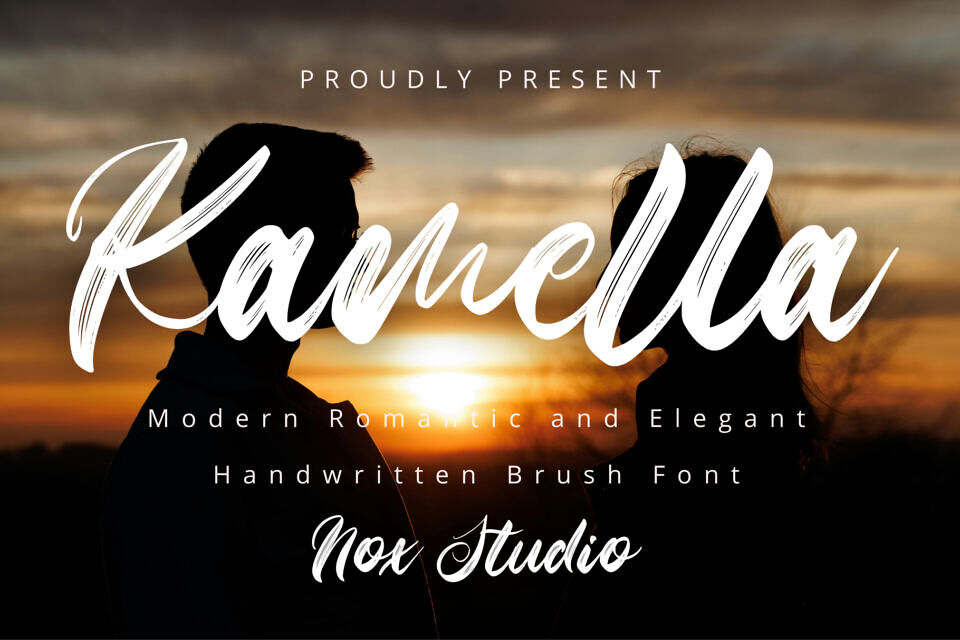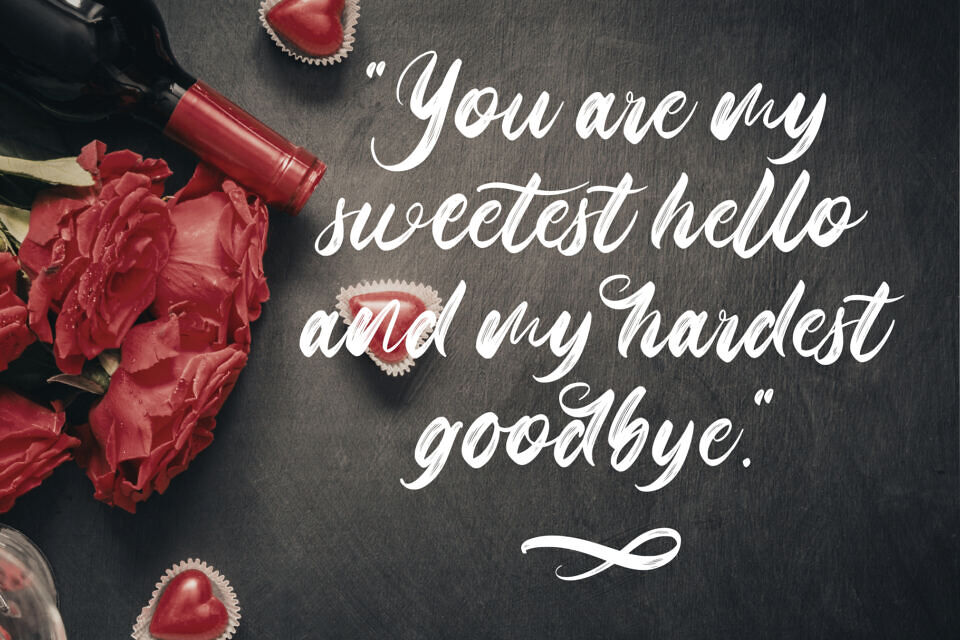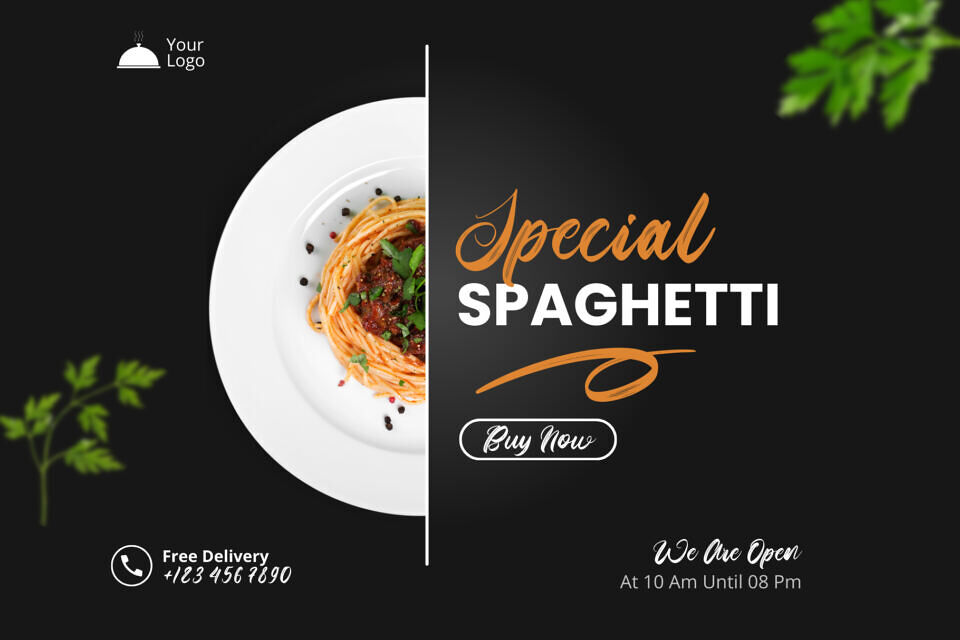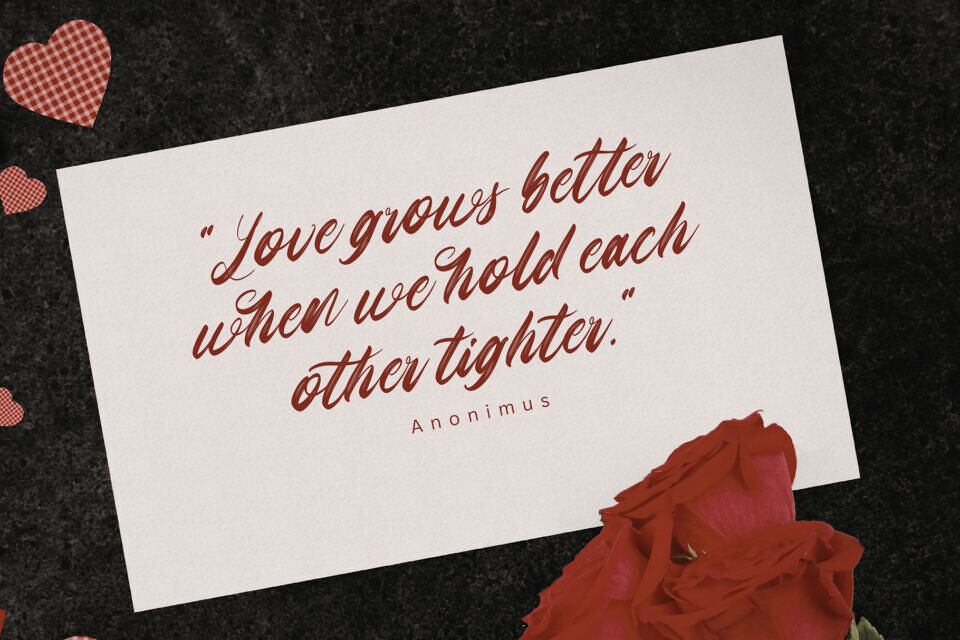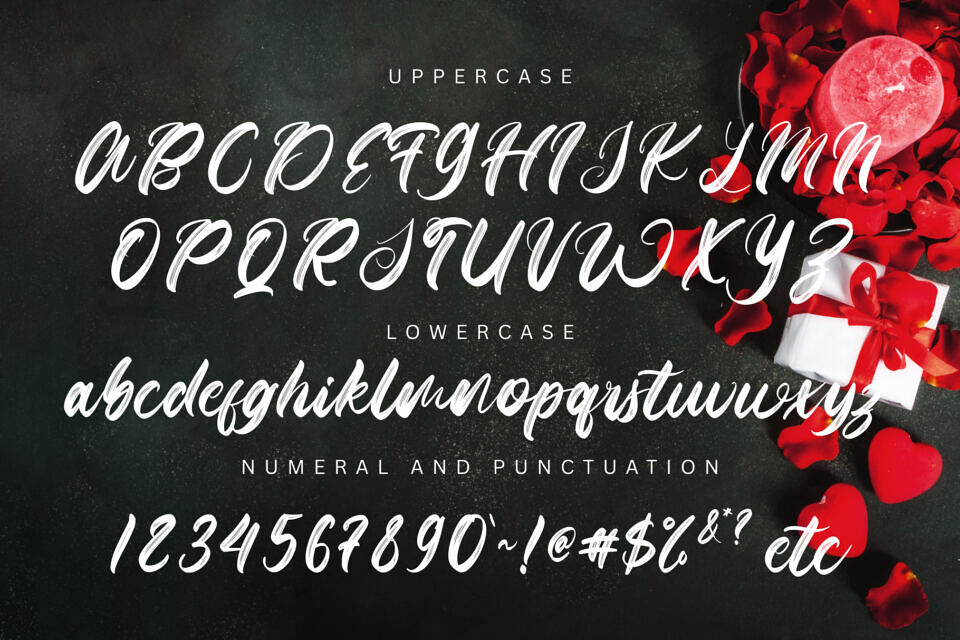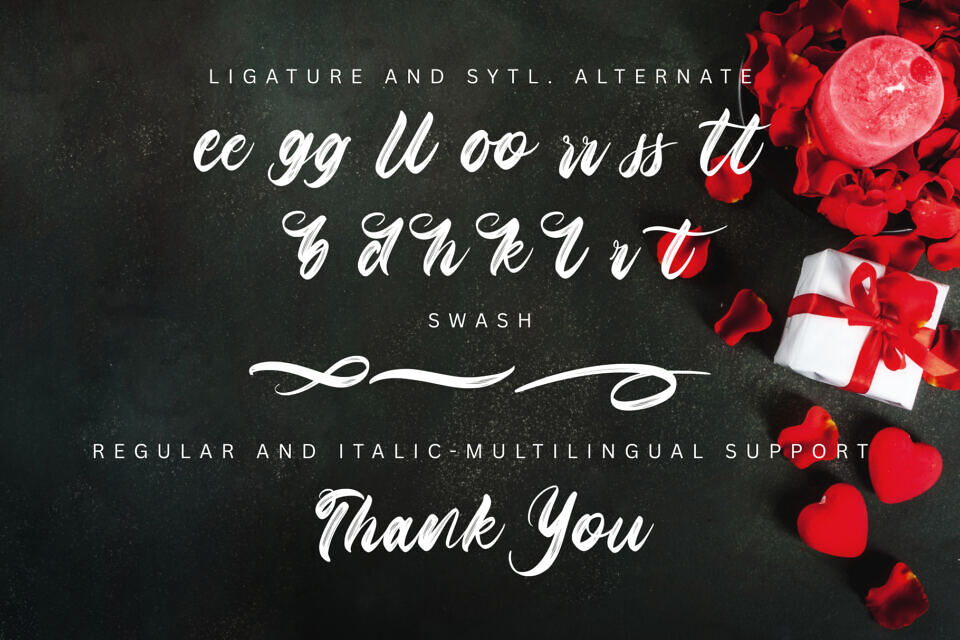
Kamella is a fancy script font that exudes elegance and fluidity, much like handwritten notes. With sophisticated connections and ligatures, it adds a touch of sophistication to designs.
Perfect for weddings, branding, and feminine-inspired projects, Kamella brings a timeless yet modern charm. Its beauty shines in logos, packaging, and quotes, making it a great choice for creatives seeking a font that blends classic elegance with contemporary style.